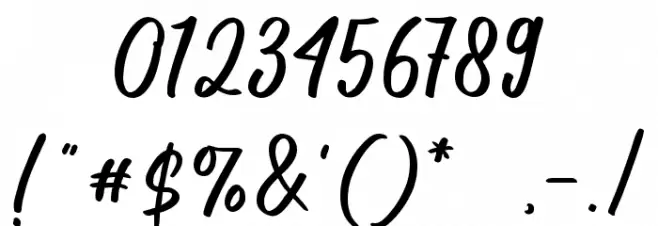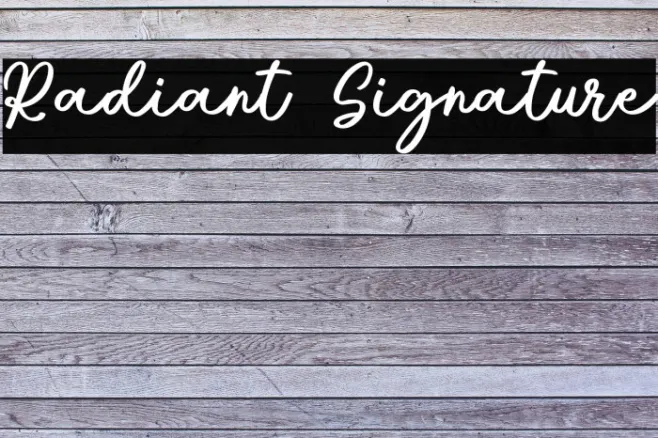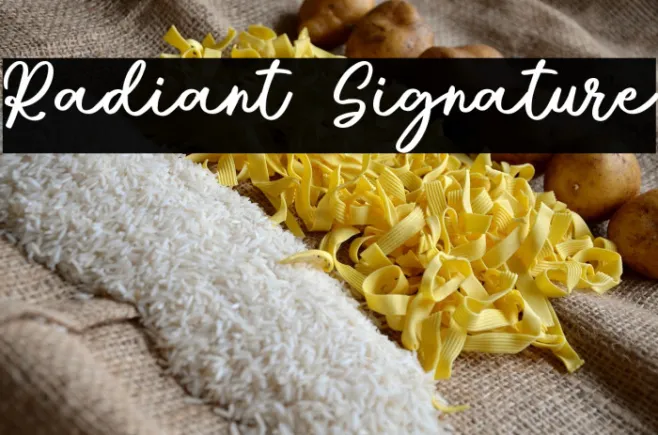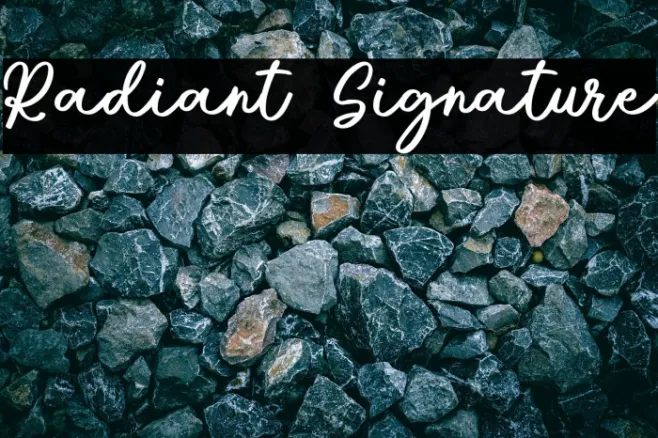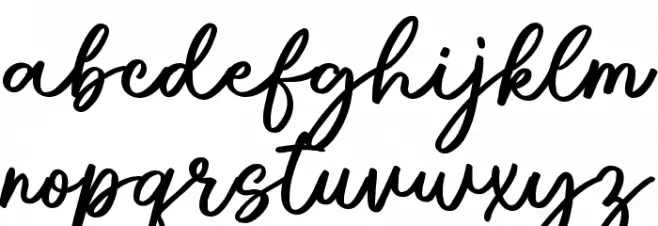
Radiant Signature Font
Radiant Signature Description
This elegant script font exudes a sense of fluidity and grace, characterized by its smooth, flowing strokes that mimic the natural motion of handwriting. The uppercase letters are slightly more structured, providing a balanced contrast to the more freeform lowercase characters. Each letter seamlessly connects to the next, creating a cohesive and harmonious appearance. The numerals and special characters maintain the same stylistic flair, ensuring consistency throughout. This font is perfect for adding a personal touch to any project, with its sophisticated yet approachable style.
A graceful script font with fluid, connected strokes, ideal for personal and elegant designs.
- Proposed Projects: Ideal for wedding invitations, personal branding, greeting cards, and elegant logo designs.
- Category: Script
- Overall Style: Elegant
- Use Case: Logos, Invitations, Personal Branding